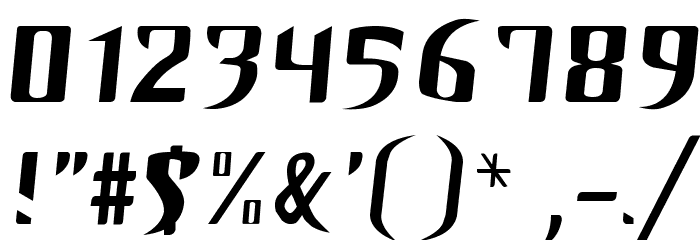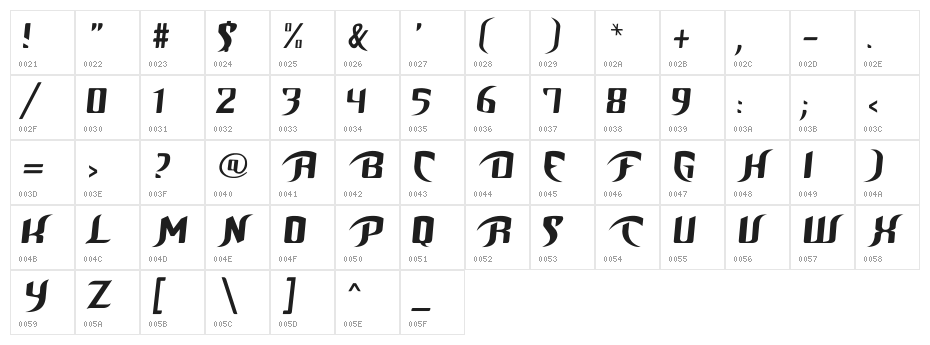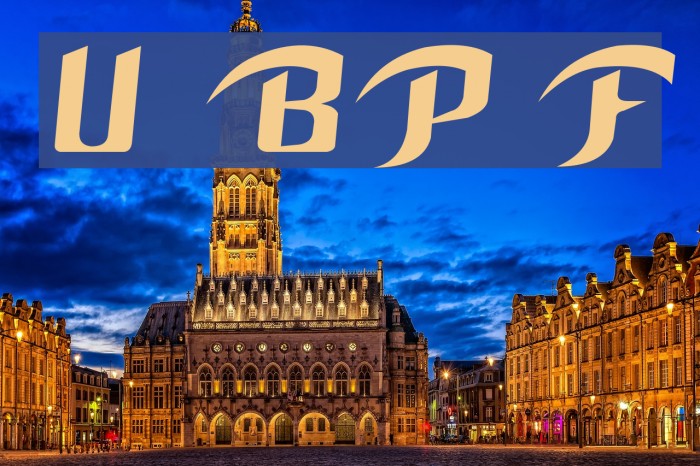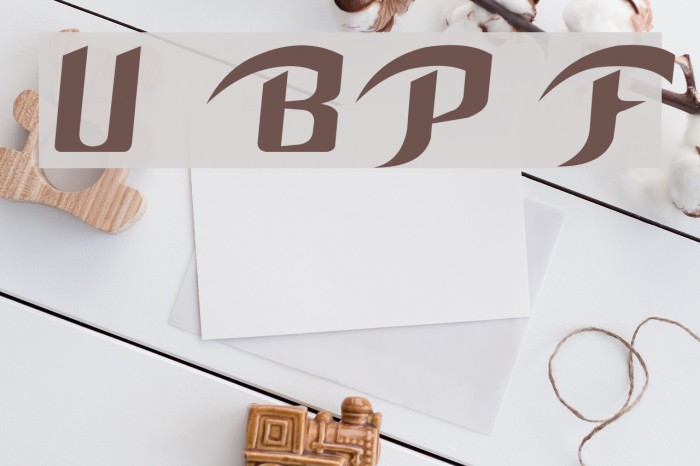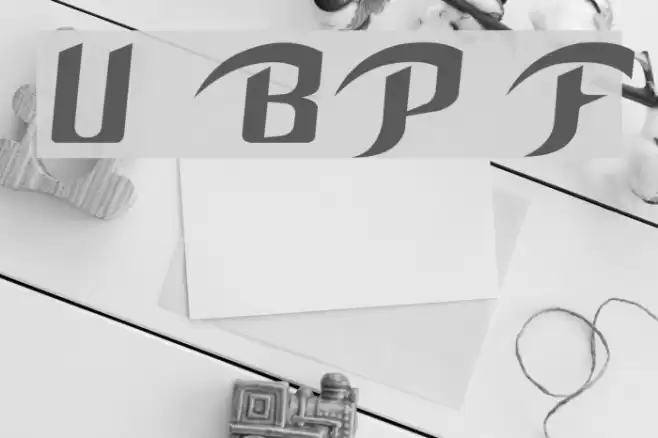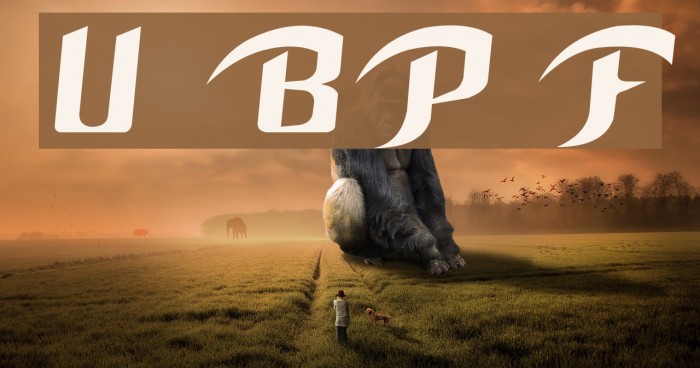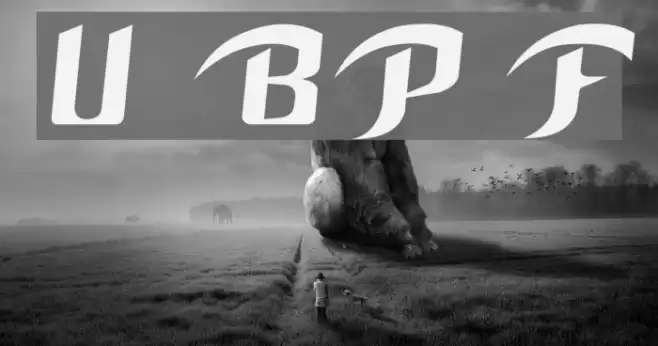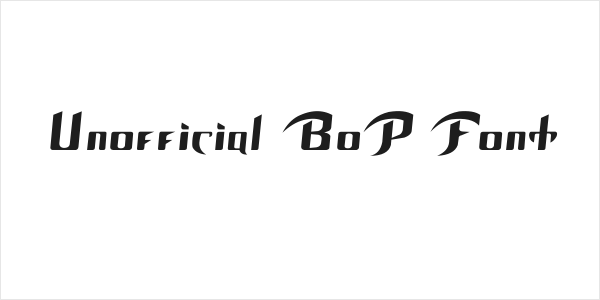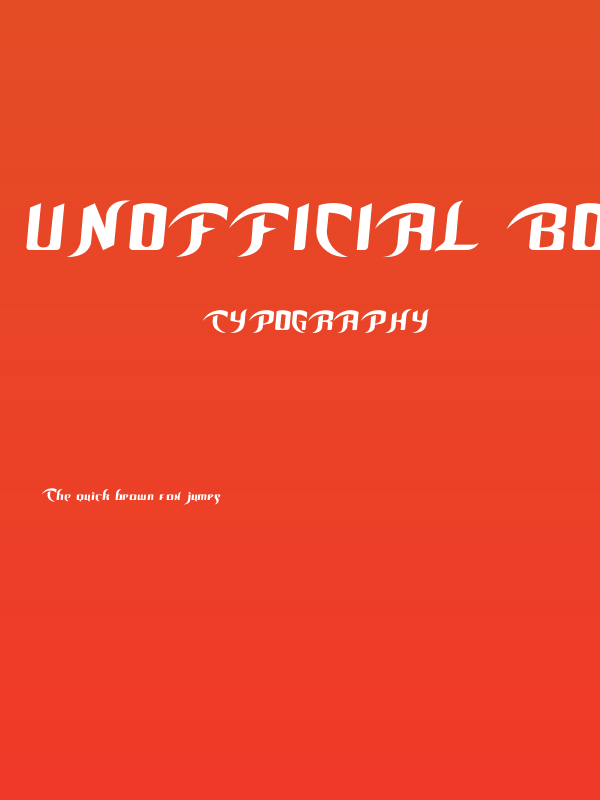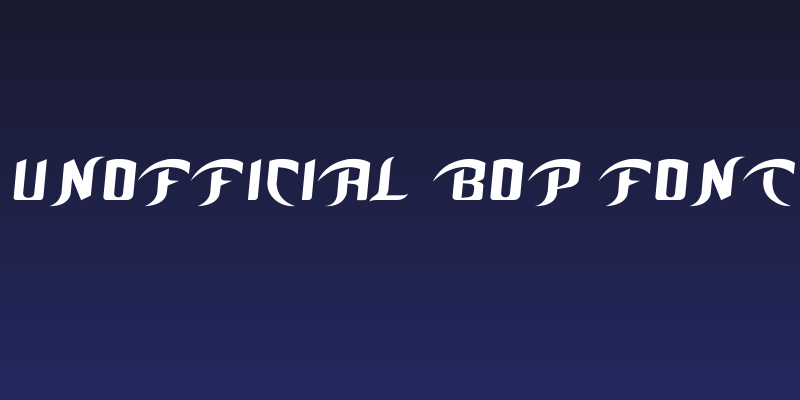
Unofficial BoP Font Description
This font features a bold and dynamic style with sharp, angular edges and a futuristic flair. The uppercase letters have a distinct, aggressive look with elongated strokes and pointed serifs, while the lowercase letters maintain a consistent style with slightly more rounded forms. The numerals are bold and easily readable, following the same angular design as the letters. Special characters are included, maintaining the font's unique aesthetic. The overall design is striking and modern, making it suitable for eye-catching displays.
| Proposed Projects | Ideal for sci-fi themed projects, video game titles, posters, and branding that requires a modern and edgy look. |